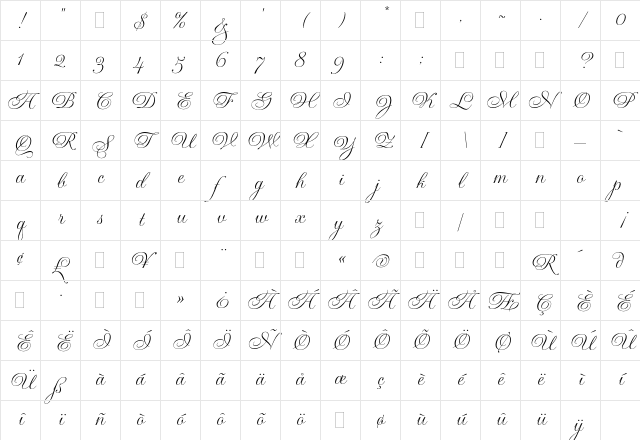
Complete Gravura Plain glyph index. Displaying only characters natively supported by Gravura Plain font.
Gravura is a composed and adaptable typeface that performs quietly and consistently across a wide range of design contexts.